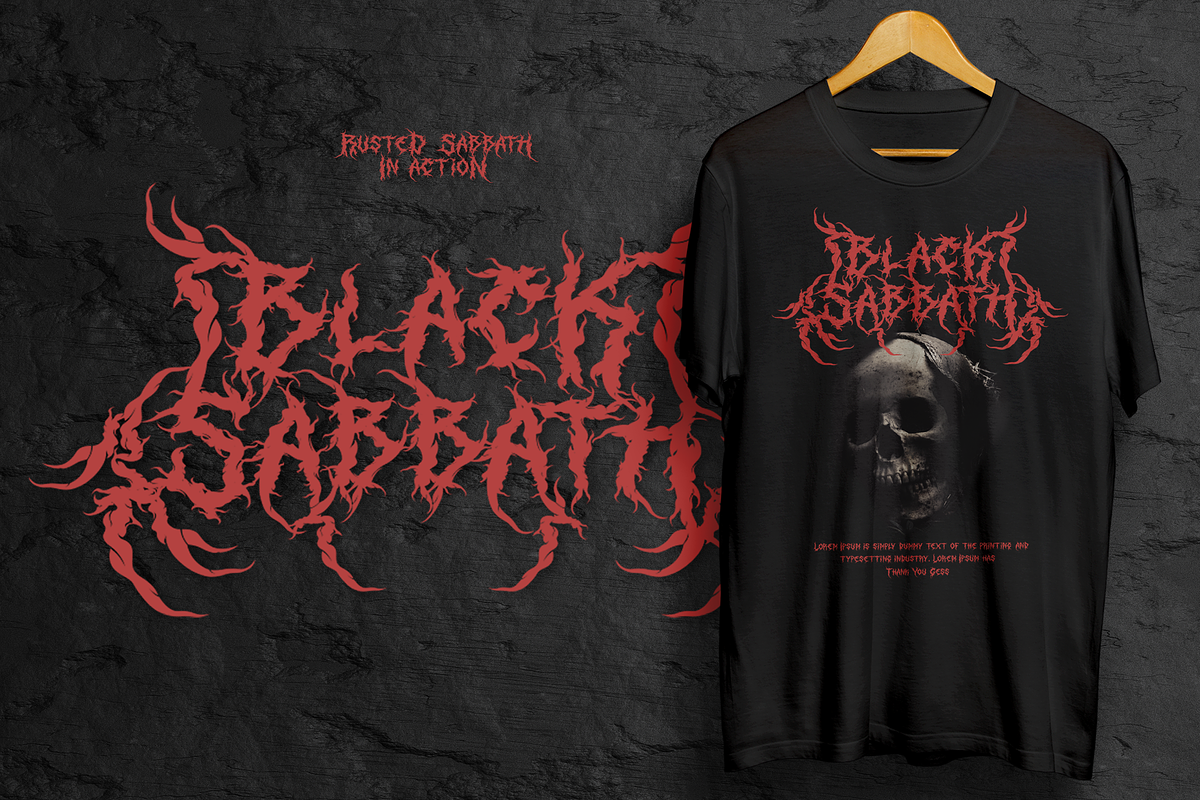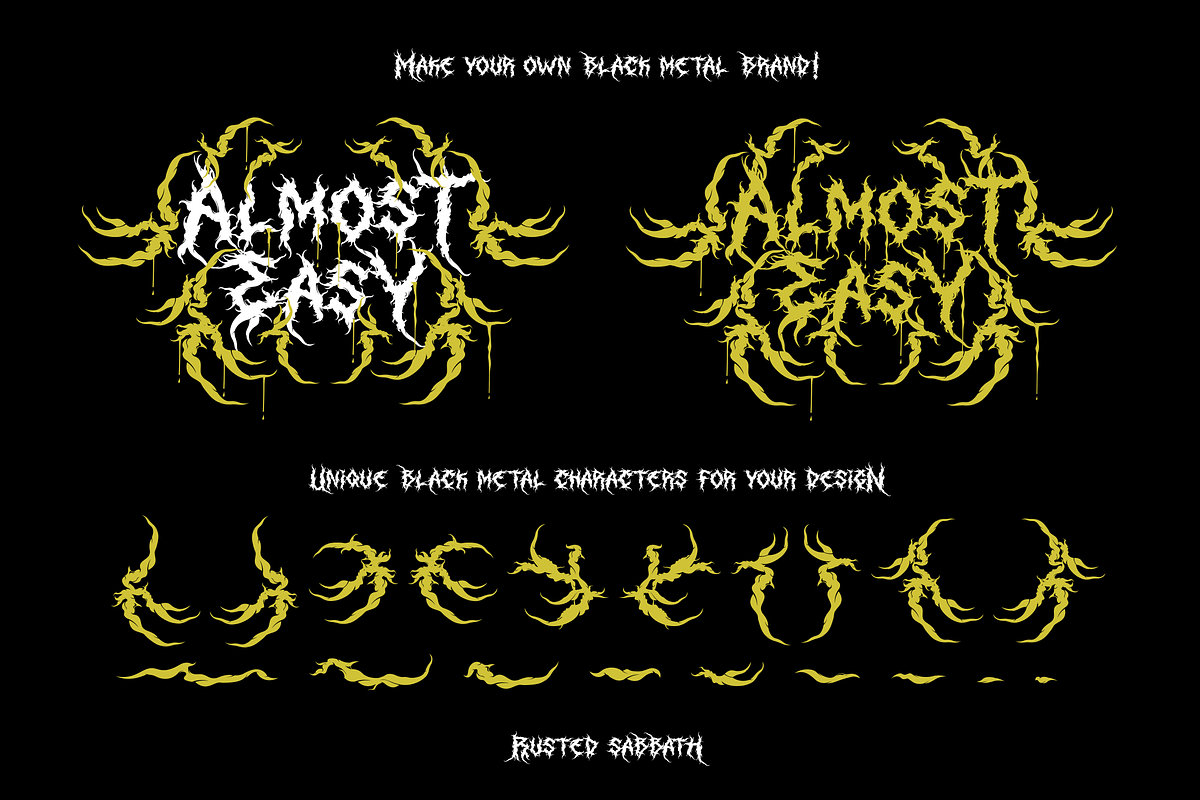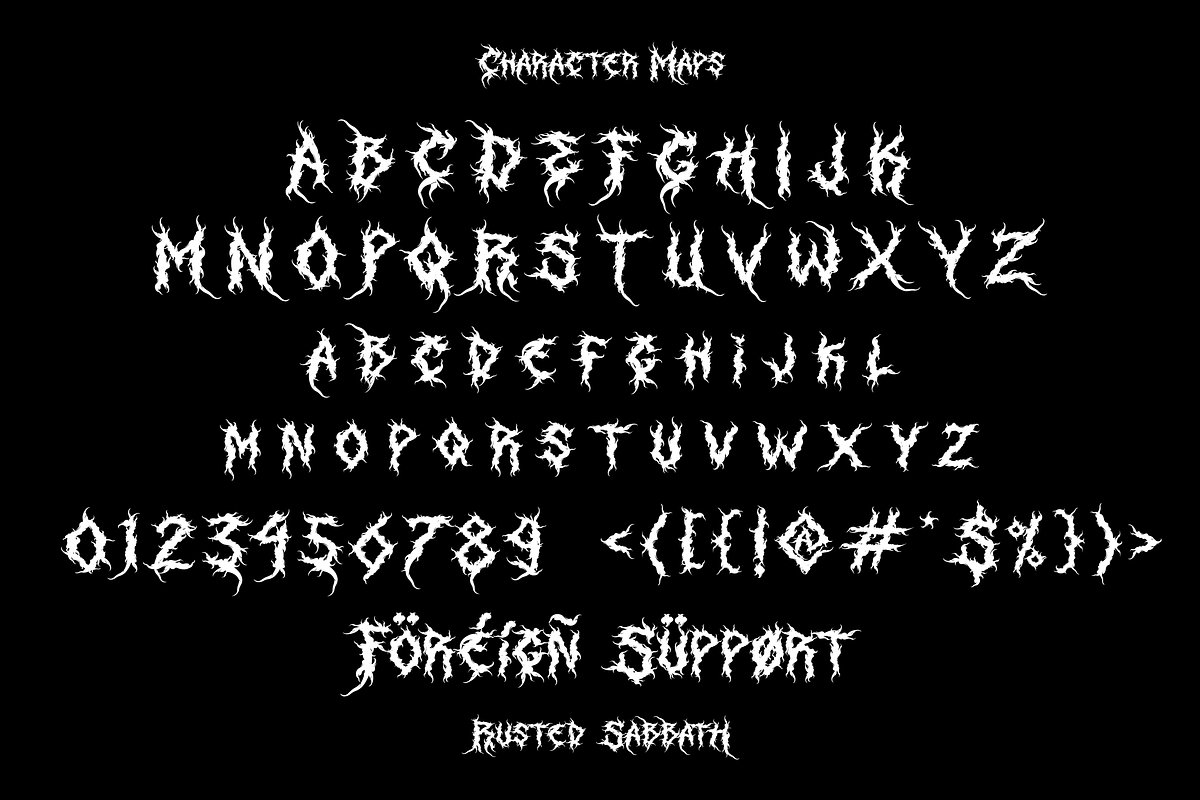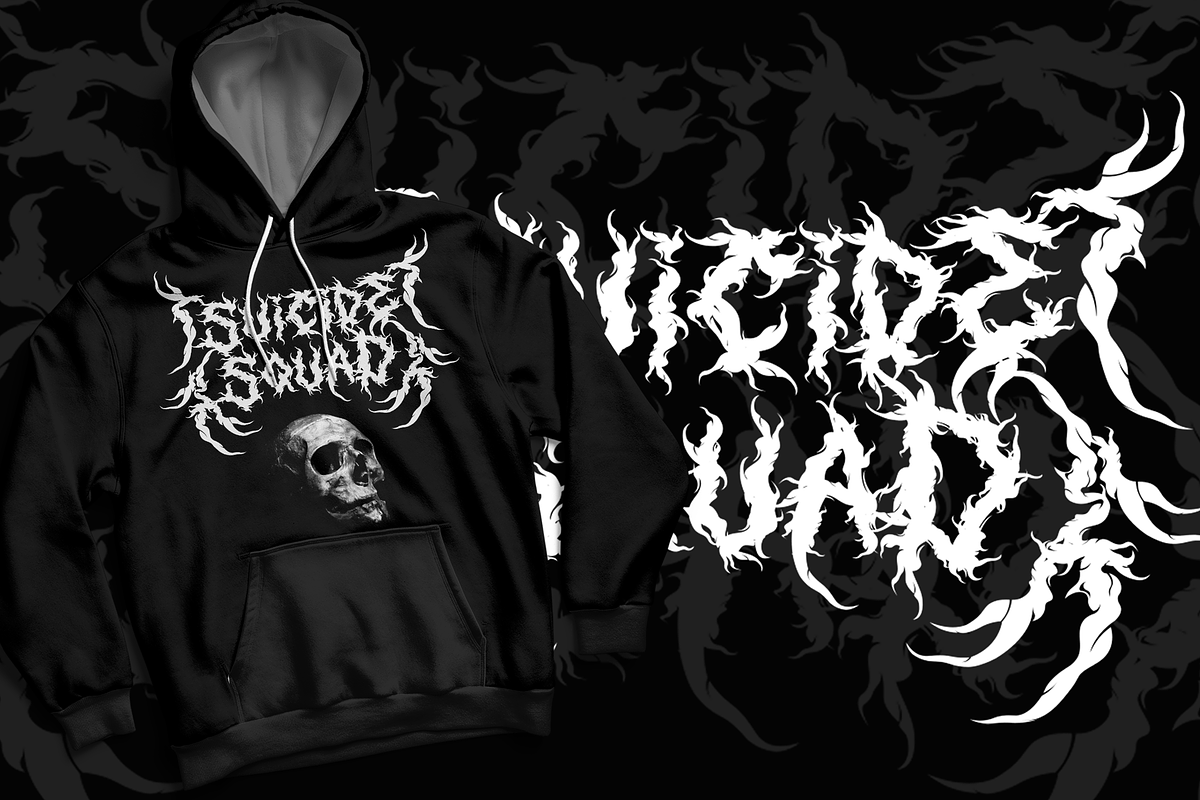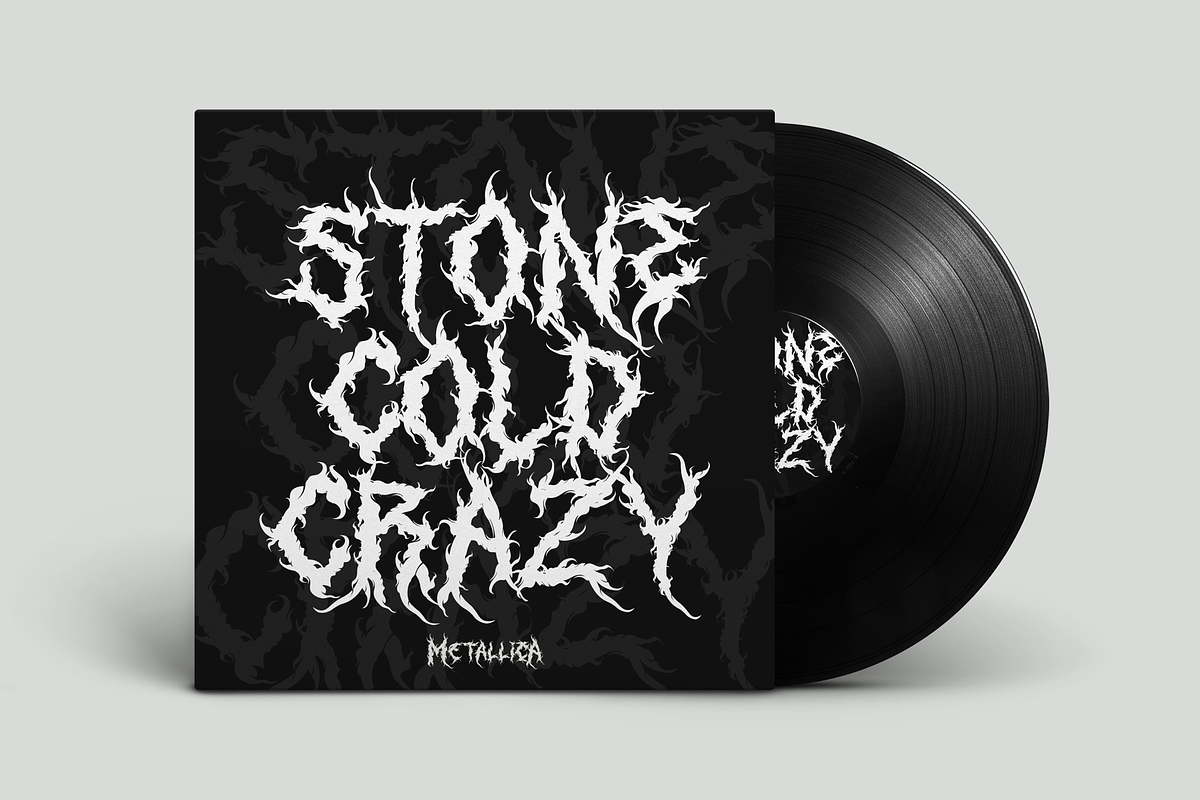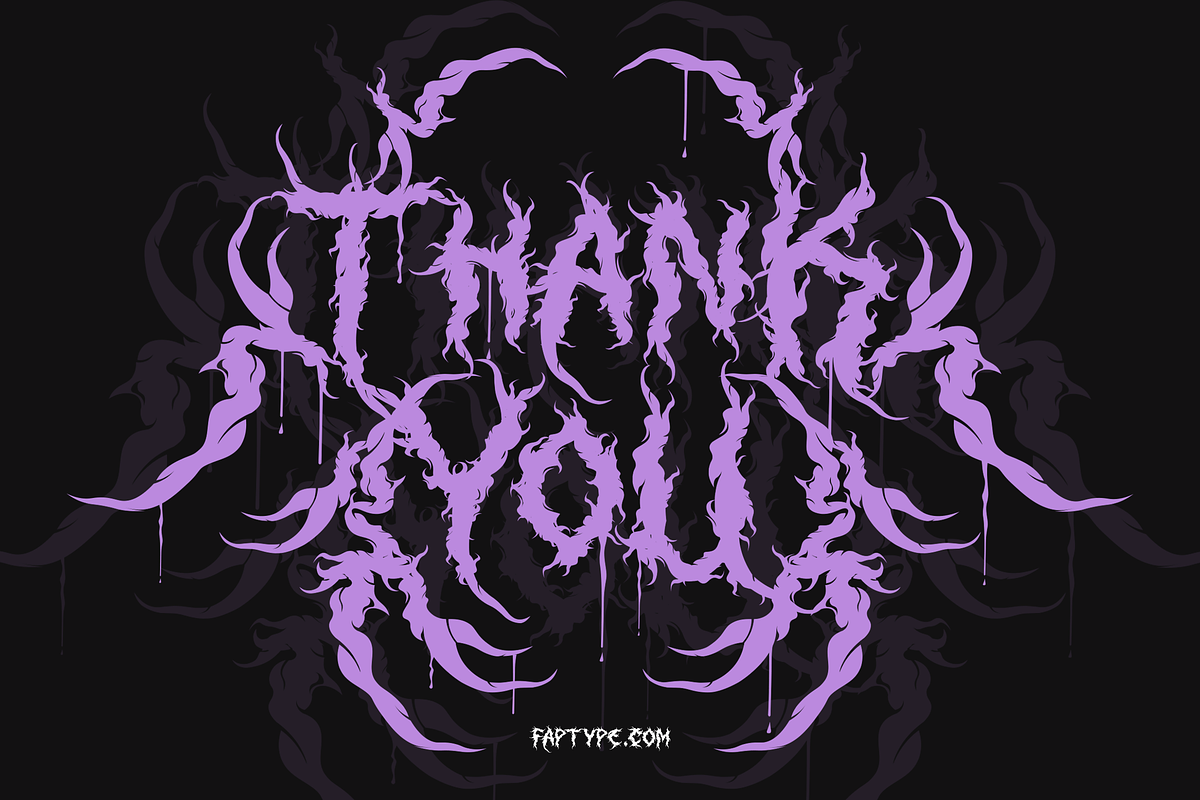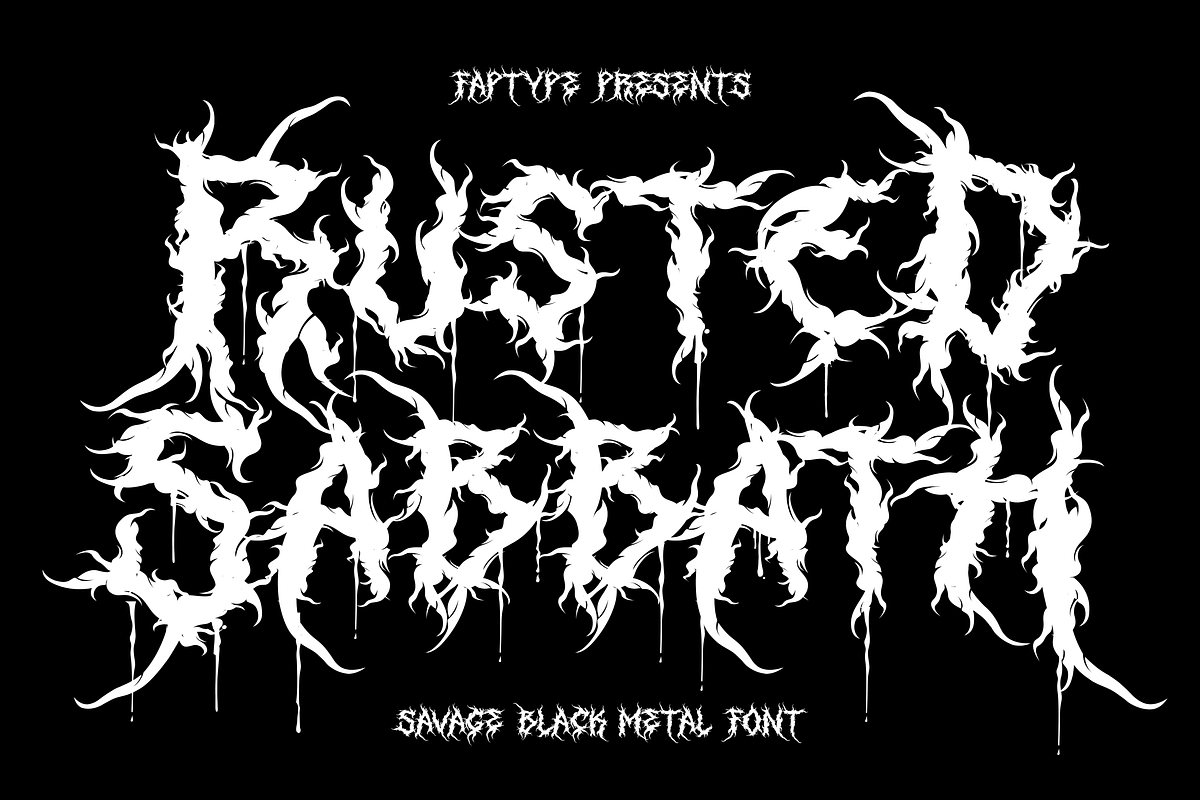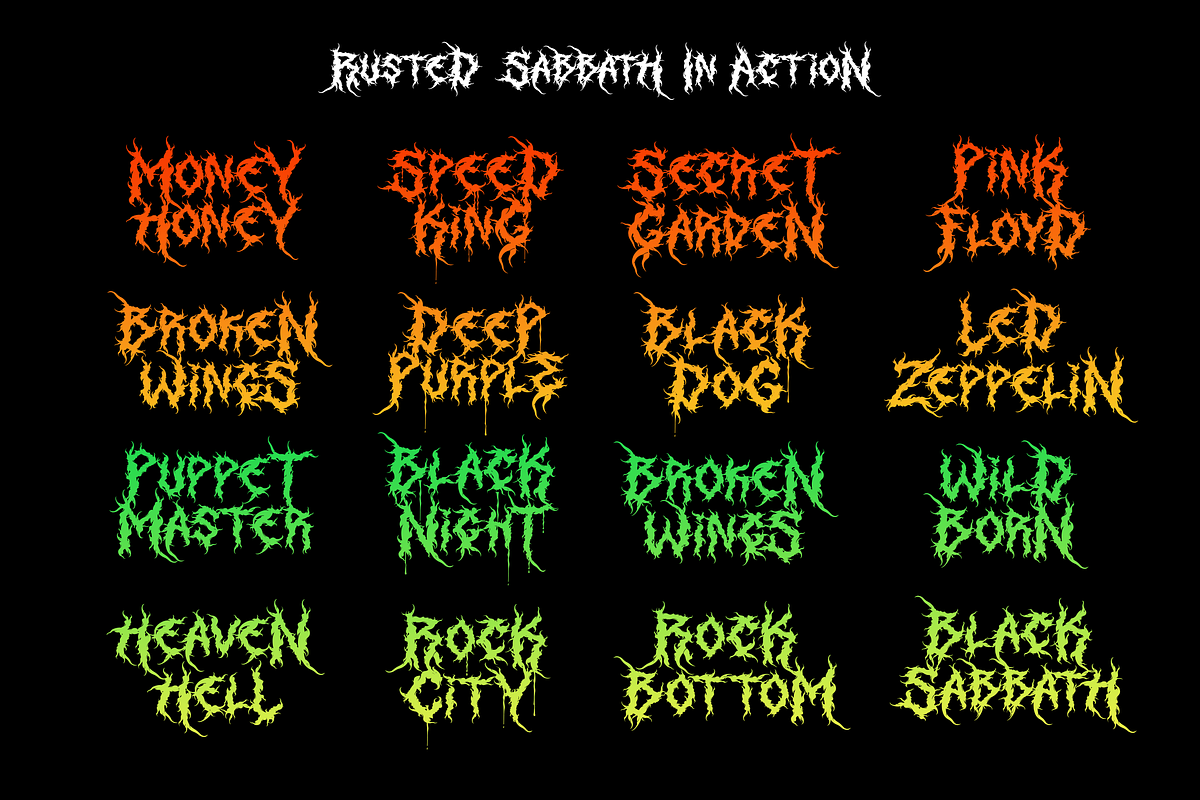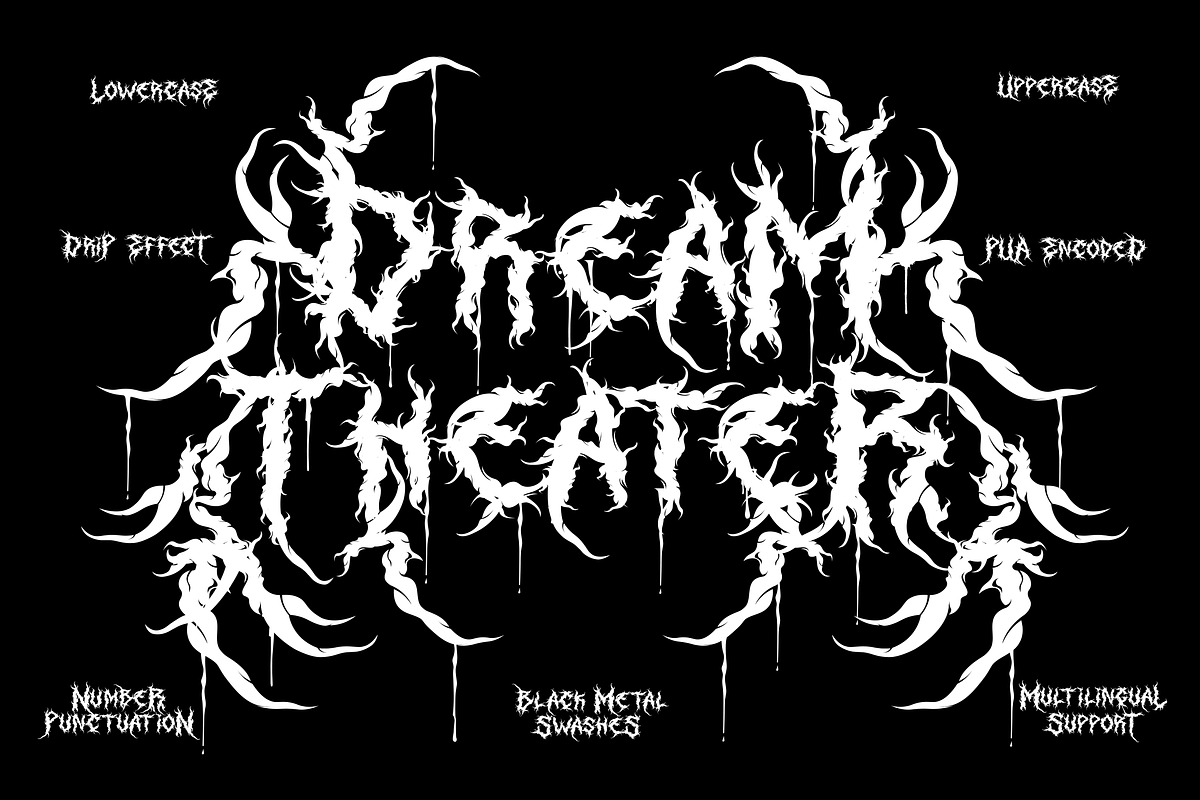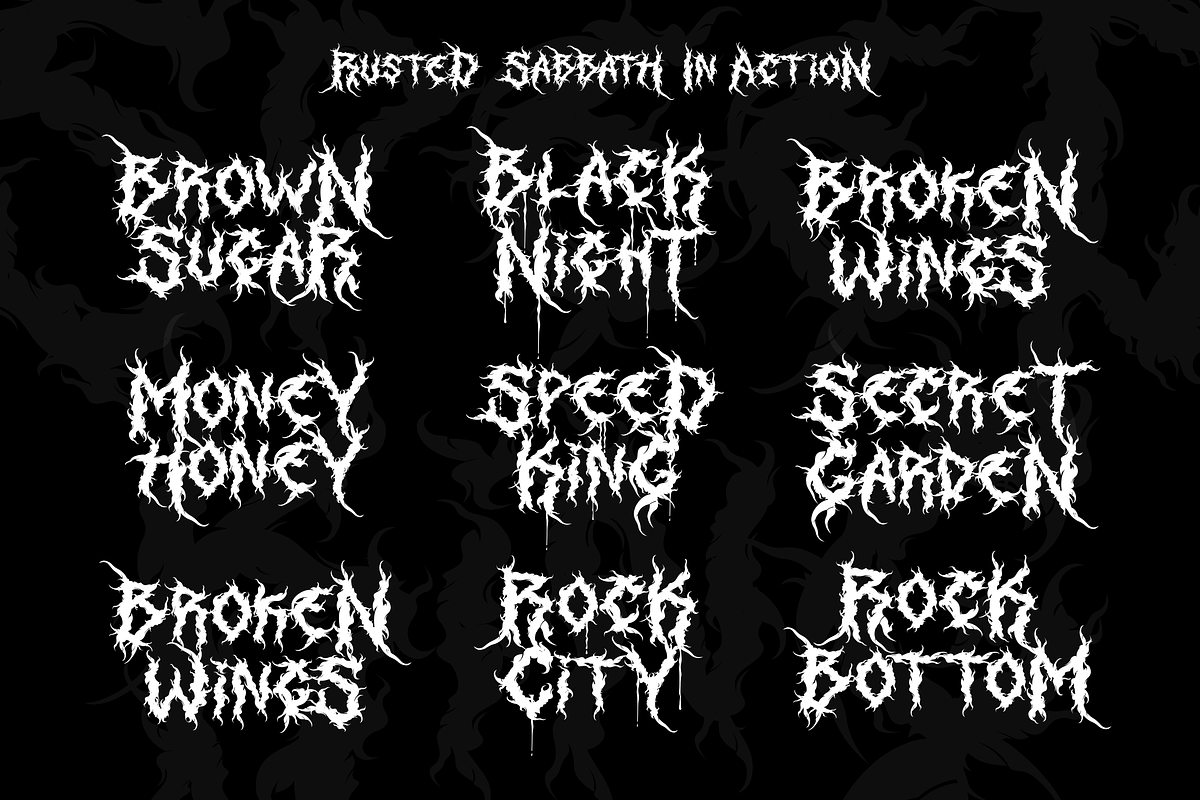
Introducing our brand new black metal font! It is Rusted Sabbath, baby!
This savage death metal font is can be used for logos or branding and your metal band name without having to pay for expensive logo-making services. Buying this font, you can immediately make your band or brand logo name.
Combine it with the death metal ornaments and make your death metal design with ease!
This black metal typeface is perfect for logotypes, t-shirts, vintage badges, branding, packaging, posters, clothing brands, horror movies, album covers, and many more!
Rusted Sabbath features:
A full set of uppercase and lowercase
Numbers and punctuation
Multilingual language support
+Death Metal Ornaments included!